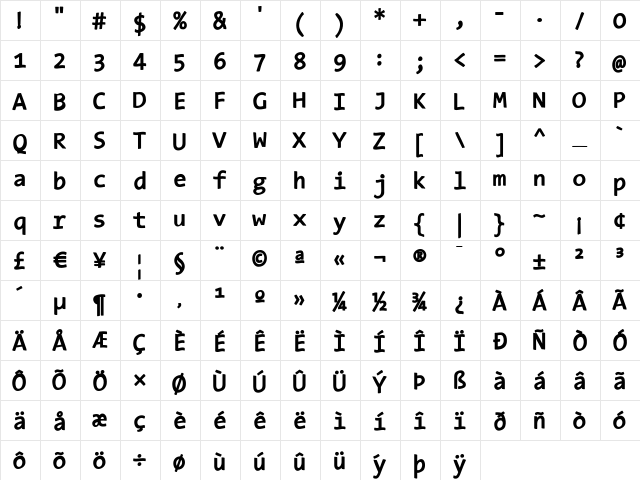
TypeWritersSubstitute-Black Regular
Design Context for TypeWritersSubstitute-Black Typeface
TypeWritersSubstitute-Black uses fixed-width spacing throughout, giving it the structured, systematic character associated with coding environments and technical documentation.
Pro Tip: Use TypeWritersSubstitute-Black with slightly increased line-height for extended reading — fixed-width spacing can feel dense in longer passages without extra breathing room.